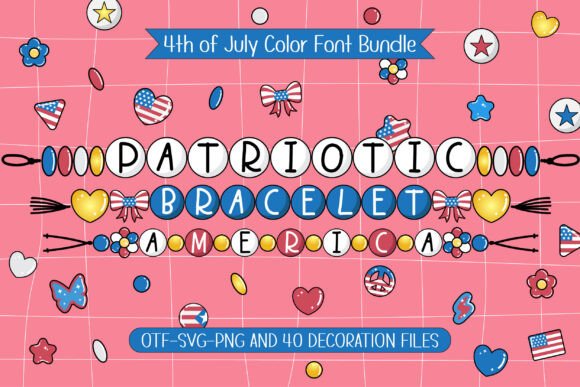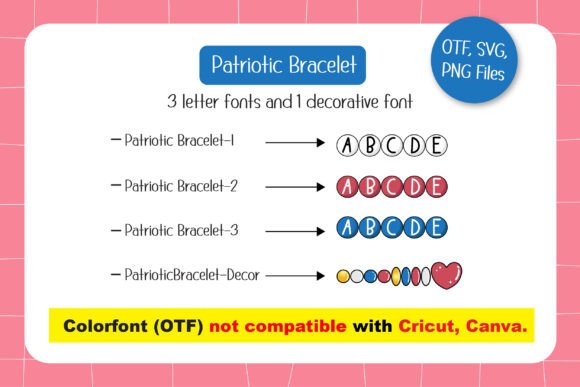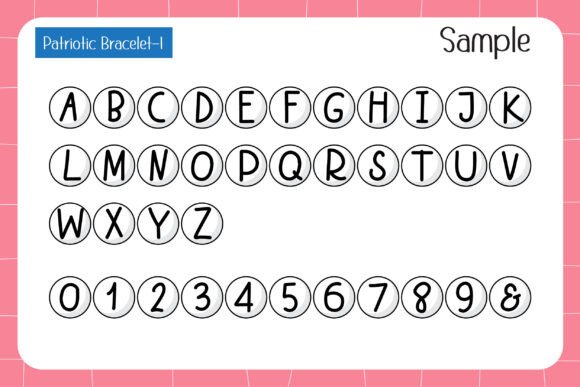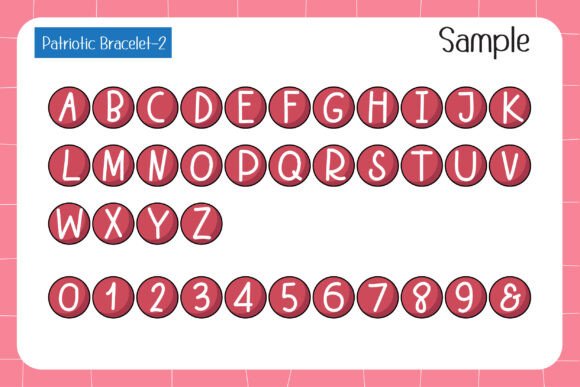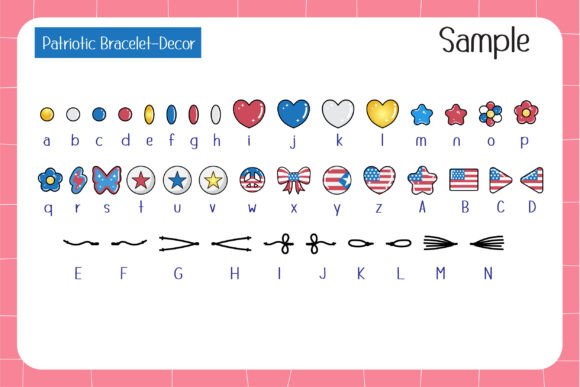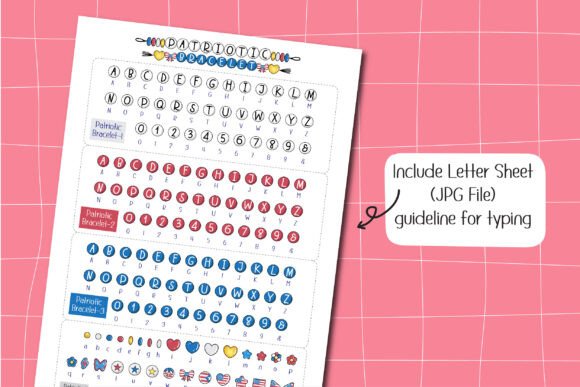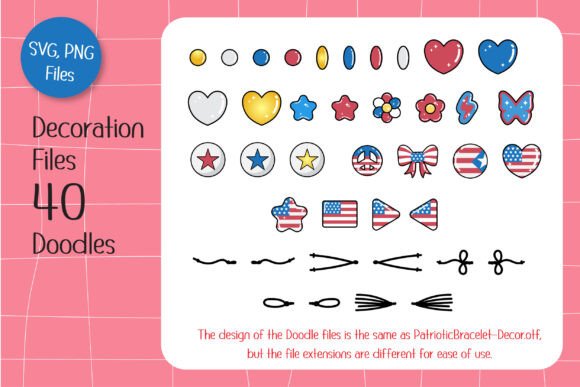
Patriotic Bracelet Font
Introducing “Patriotic Bracelet,” a creative font inspired by the charm of friendship bracelets and the spirit of American Patriotic Day. Designed in a vibrant red, white, and blue palette, this font captures the essence of national pride with bead letters and playful patterns.
The set includes 4 fonts—3 color fonts and 1 decorative font—alongside 40 matching doodles featuring patriotic elements like American flags and heart-shaped flag designs, echoing the look of the decorative font for seamless coordination. Perfect for 4th of July posters, patriotic quotes, T-shirts, party invitations, banners, stickers, scrapbook pages, DIY crafts, and more, “Patriotic Bracelet” is a fun and festive way to celebrate freedom with a heartfelt, handmade touch.